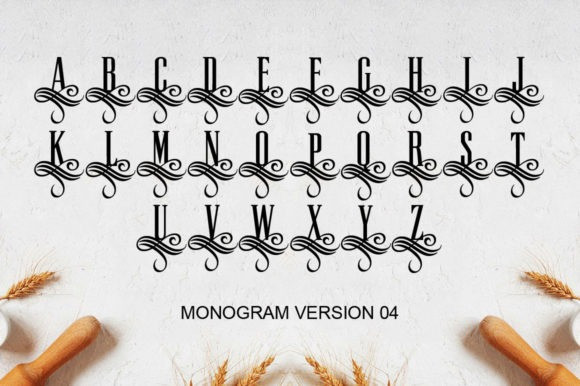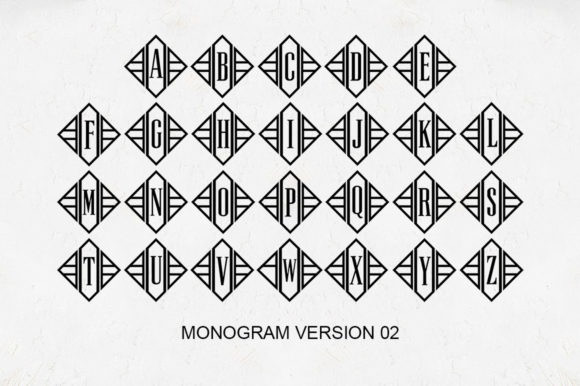
Palestine Script and Monogram Font
Palestine Script and Monogram Font – Family Monogram Font contains monograms in 12 different styles from basic to complex. There are round, square, vortex, and more. This versatile graphic is perfect for invitations, initials on note cards, custom embossers, custom stamps, logos, wall art, business cards, and more. They are beautiful on their own or layered for a new look.